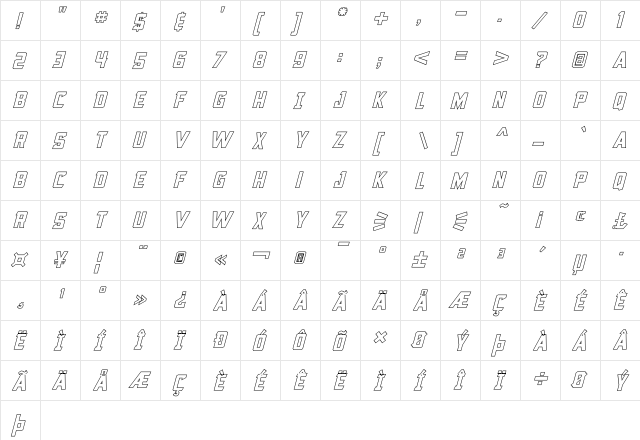
Fatcat Light Italic Font Preview
| Foundry | Jason L. Arthur |
| Designer | Jason L. Arthur |
Design Context for Fatcat Typeface
Fatcat takes a measured approach to typography — its balanced proportions and neutral character make it a reliable workhorse for both digital and print work. The dynamic lean of this cut emphasises speed and emphasis in any layout. Its slender proportions lend an understated elegance to any composition.
Pro Tip: Try Fatcat for annotation and caption copy alongside an upright companion — the contrast in angle creates a dynamic but ordered typographic system.